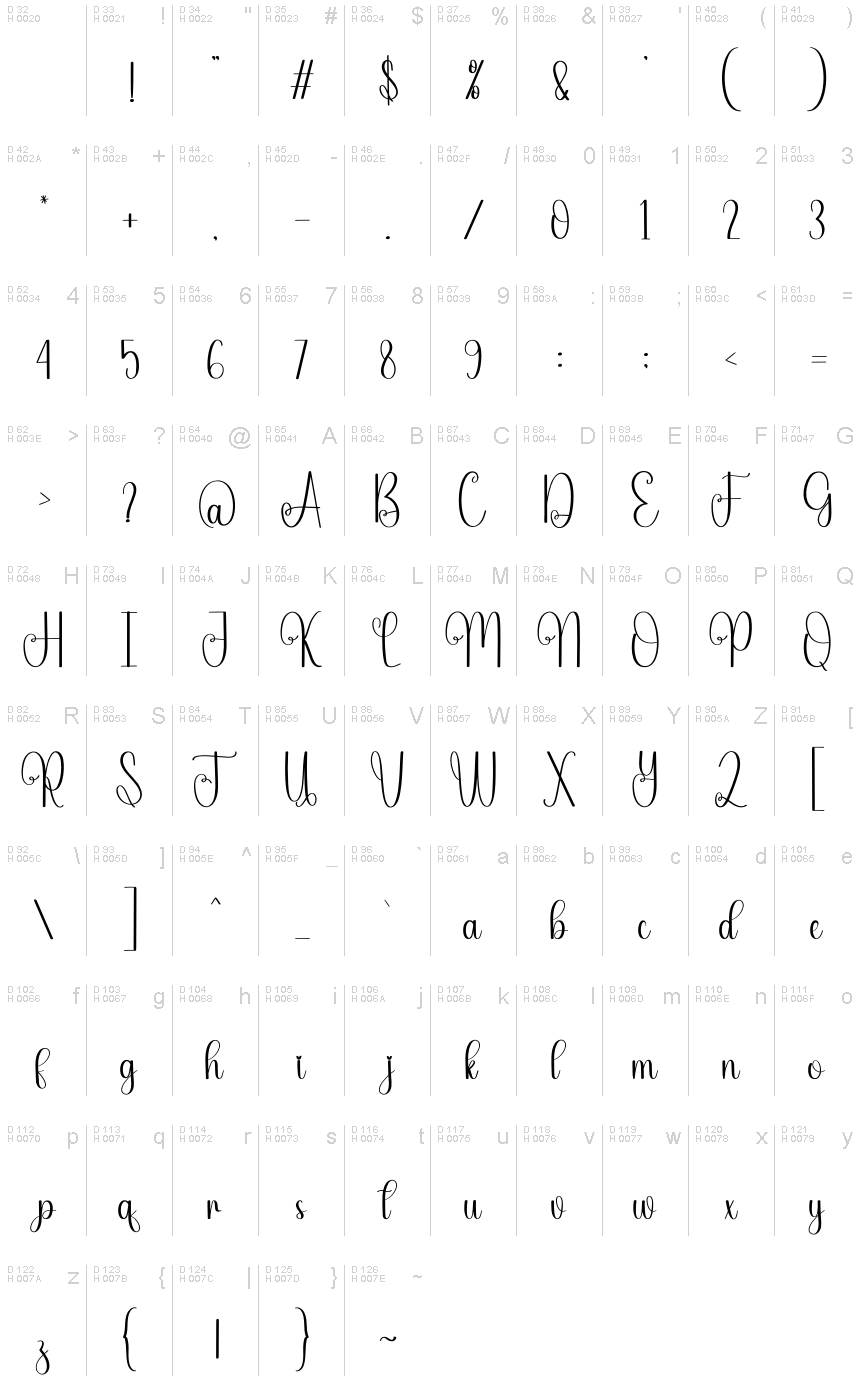
Cinema
Cinema is a captivating calligraphy font that exudes a sense of cinematic grandeur. Crafted by designer Andi Moz, this font boasts elegant, sweeping strokes that evoke the graceful movement of a film camera. The fluid, script-like forms lend an air of sophistication and artistic flair, making Cinema an ideal choice for a wide range of design applications, from movie titles and movie posters to high-end branding and editorial layouts.
Its versatility and refined aesthetic make it a standout option for designers seeking to infuse their projects with a touch of cinematic style and timeless appeal.